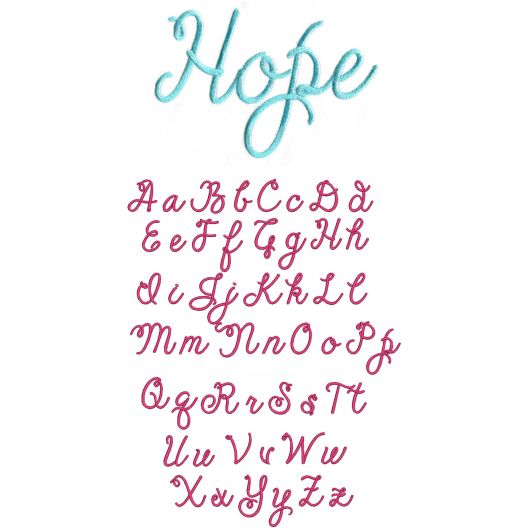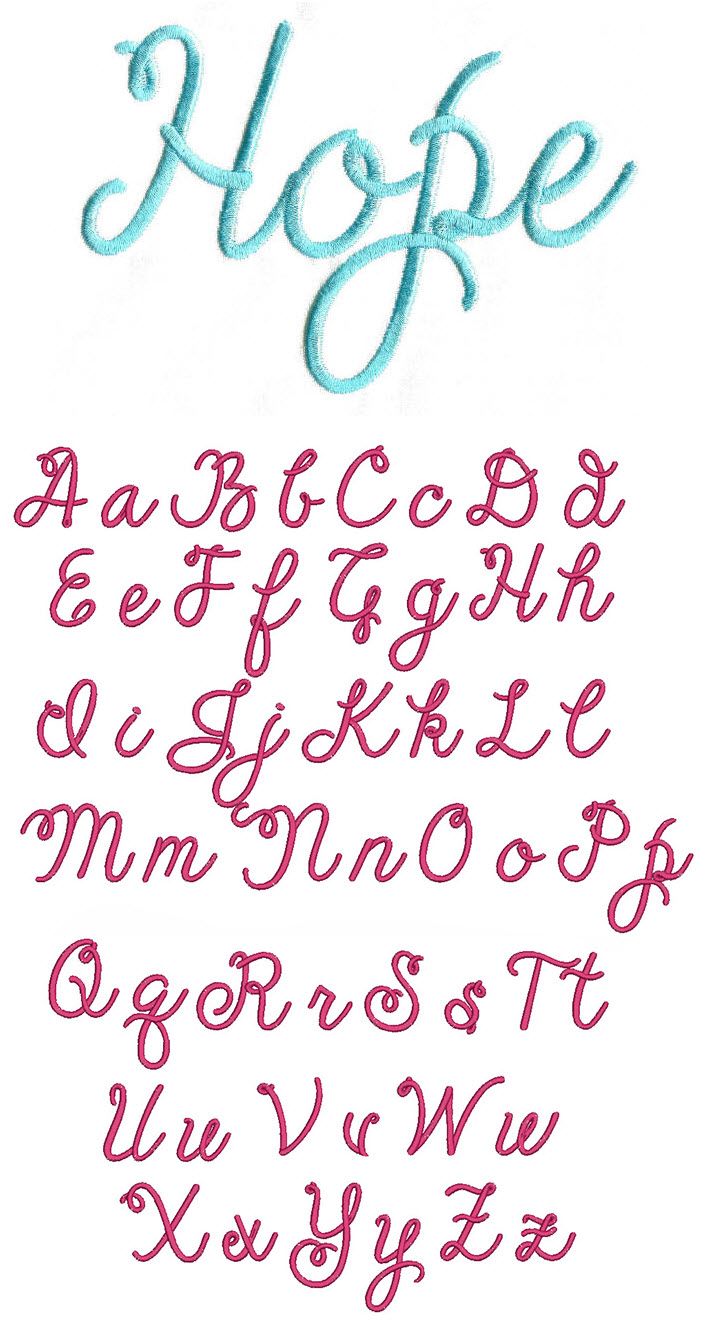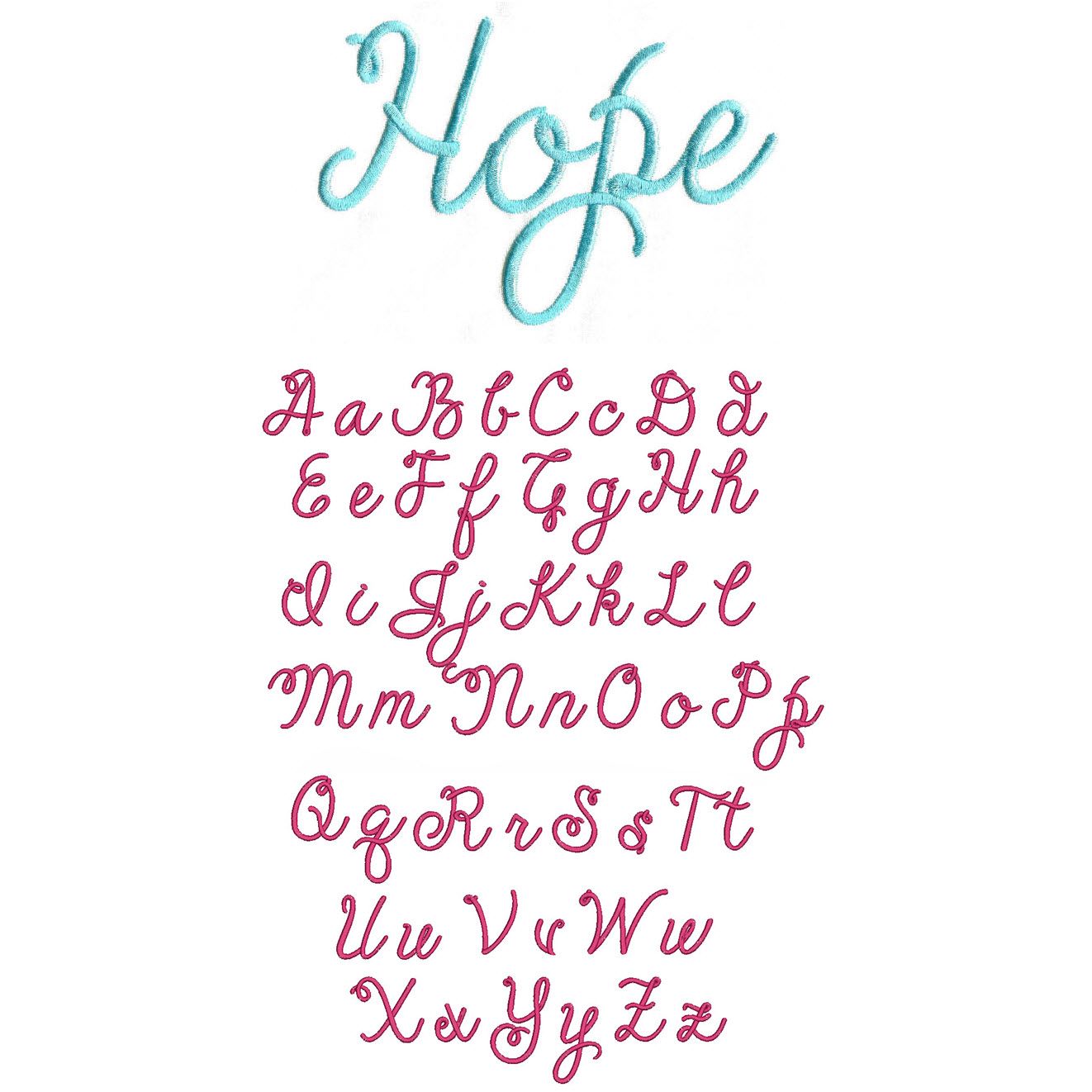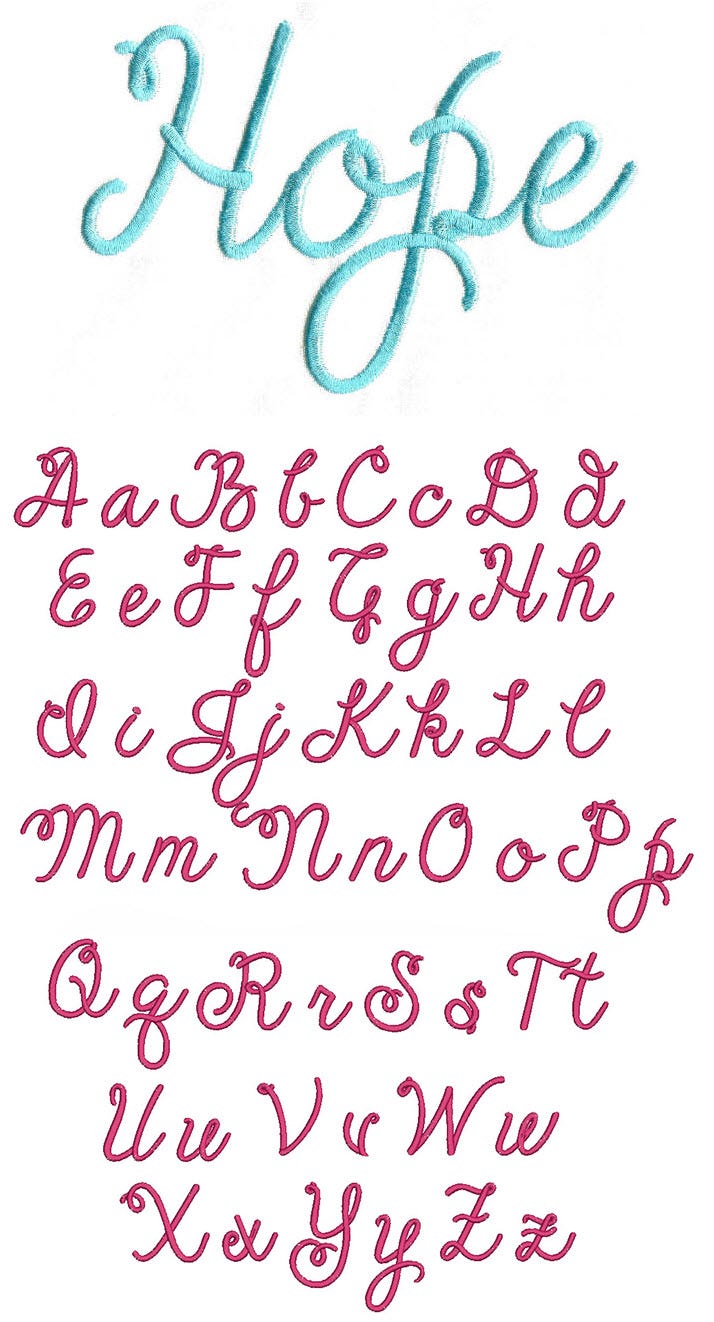
Cheerful Script Satin Stitch Embroidery Font
Another fun and beautiful script font from Kimberly Geswein! All of our font alphabets are 100% manually digitized to bring you maximum stitch quality.